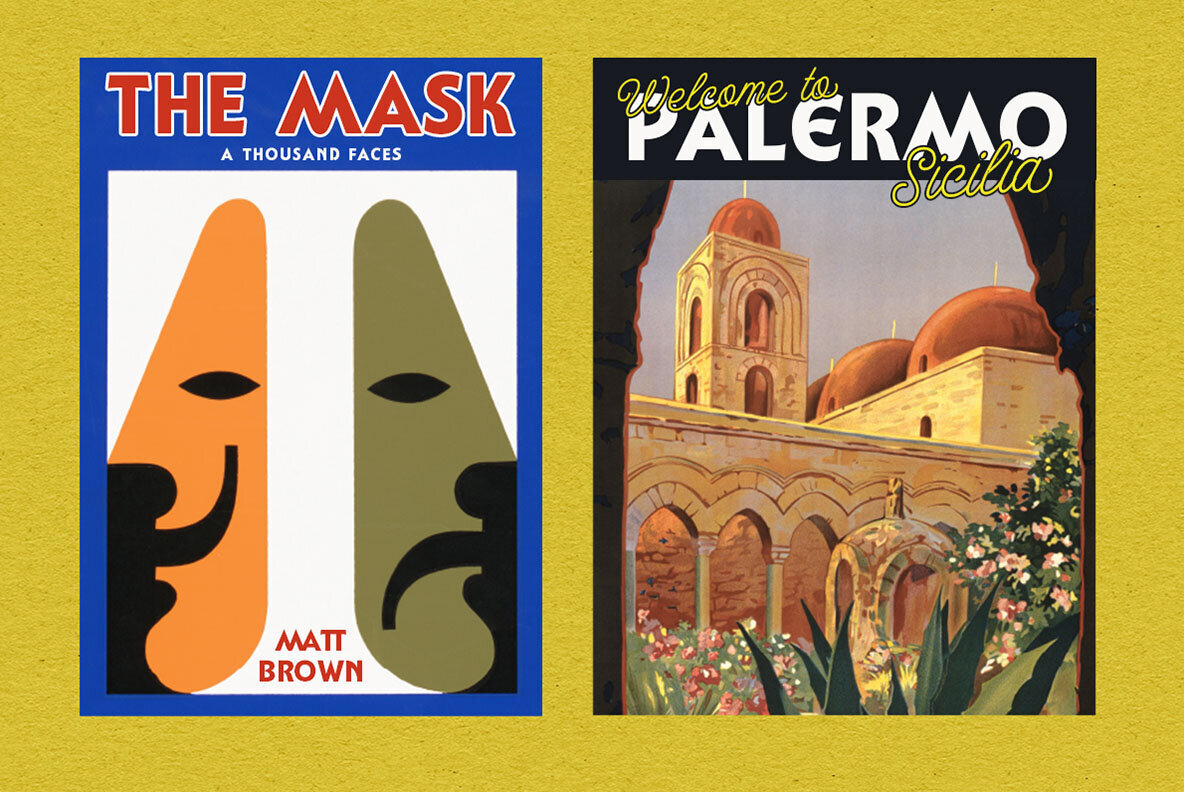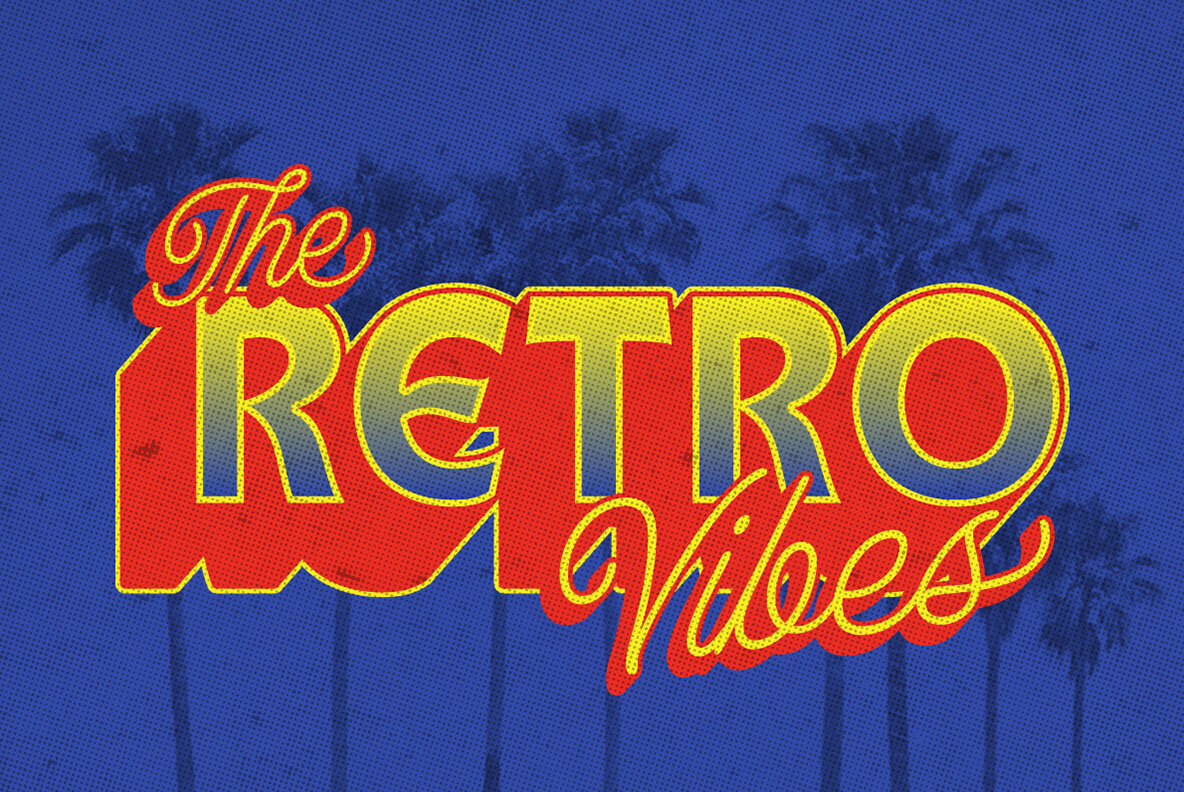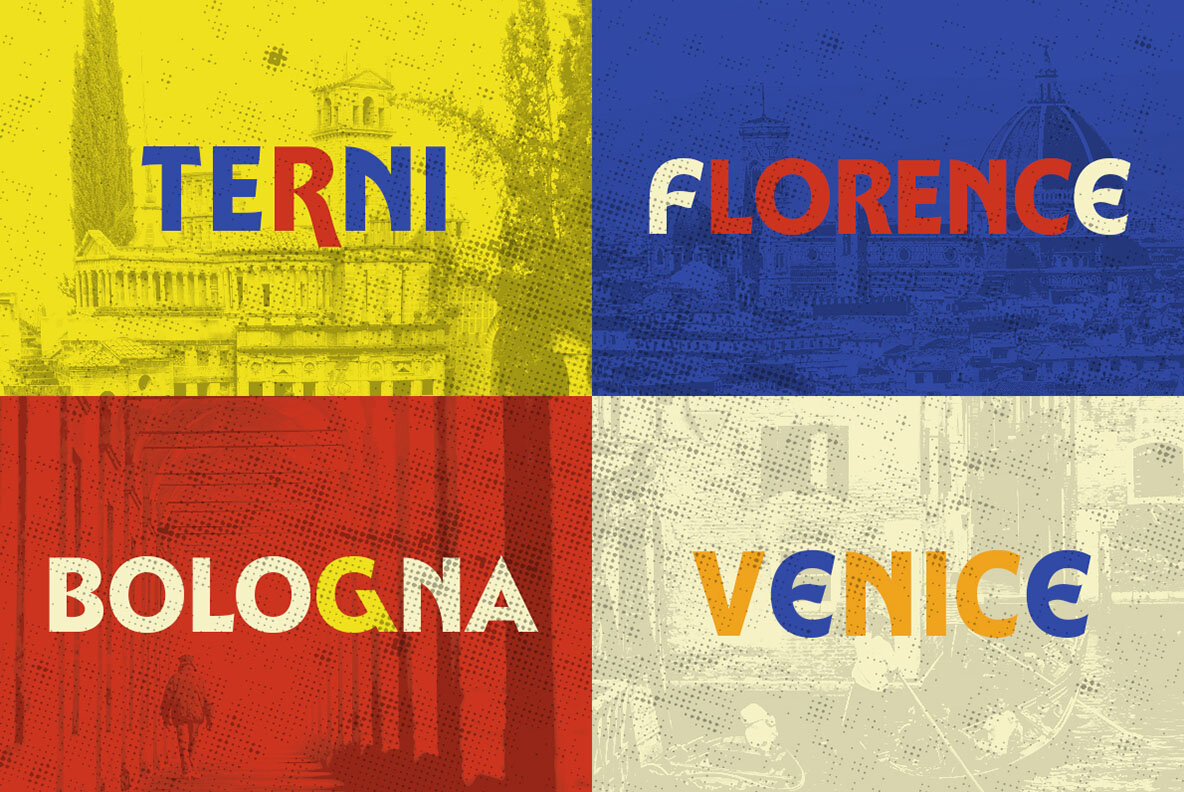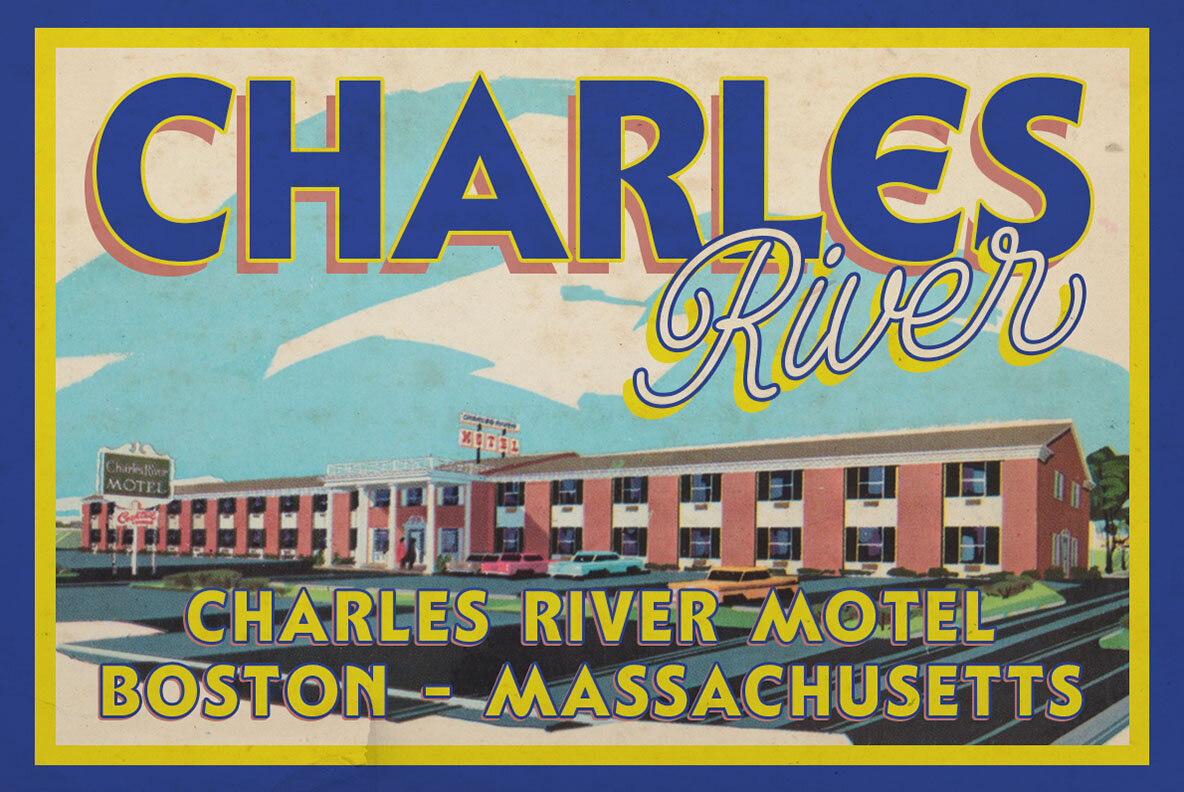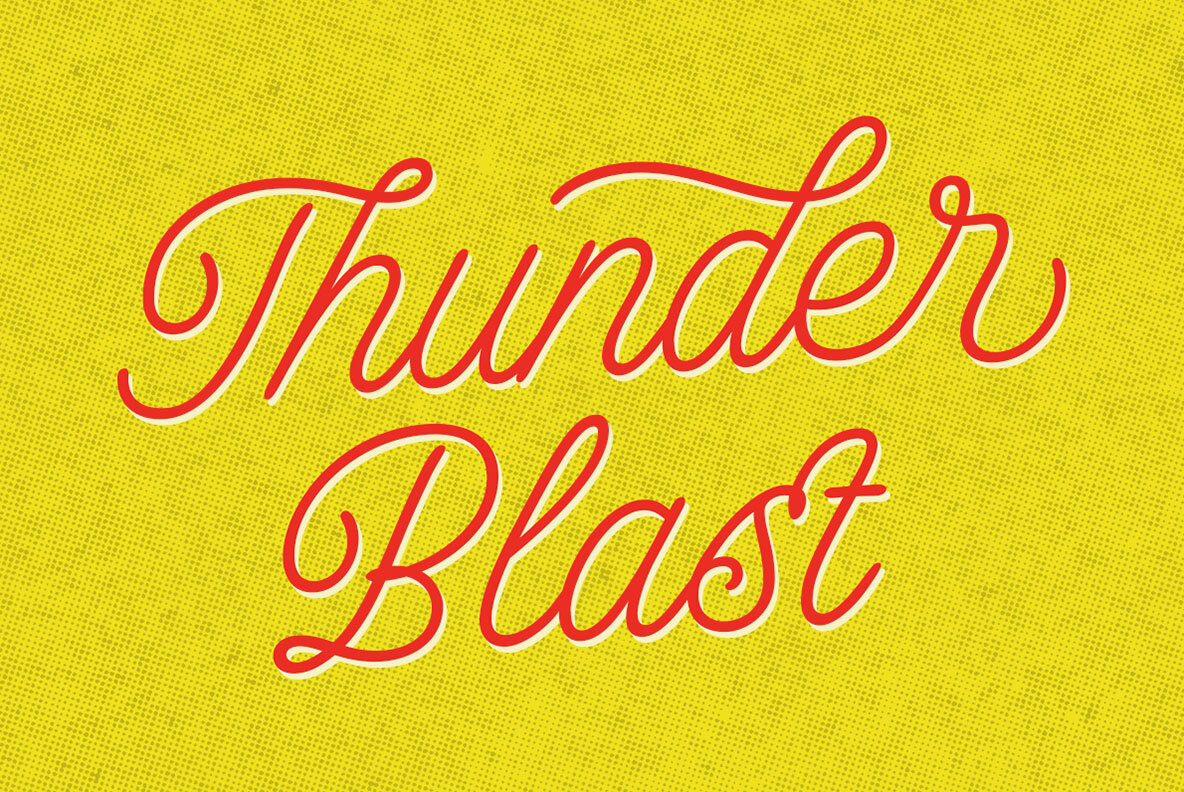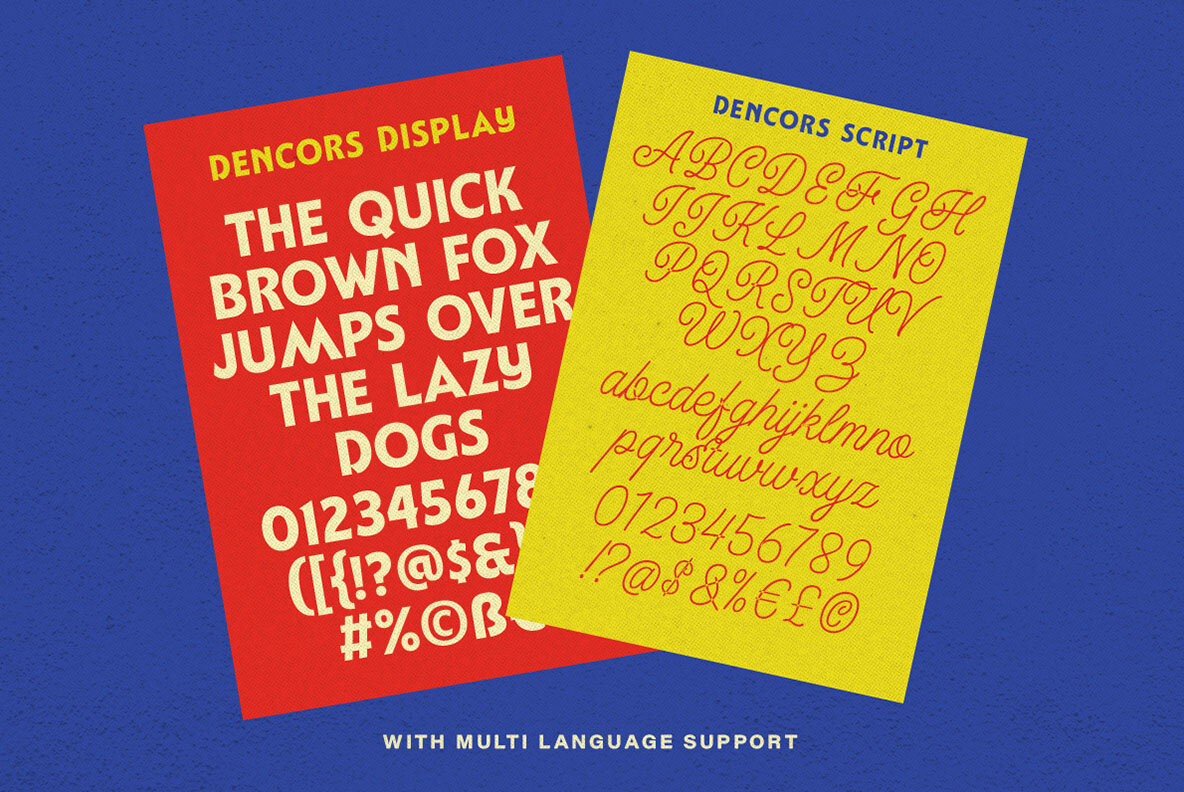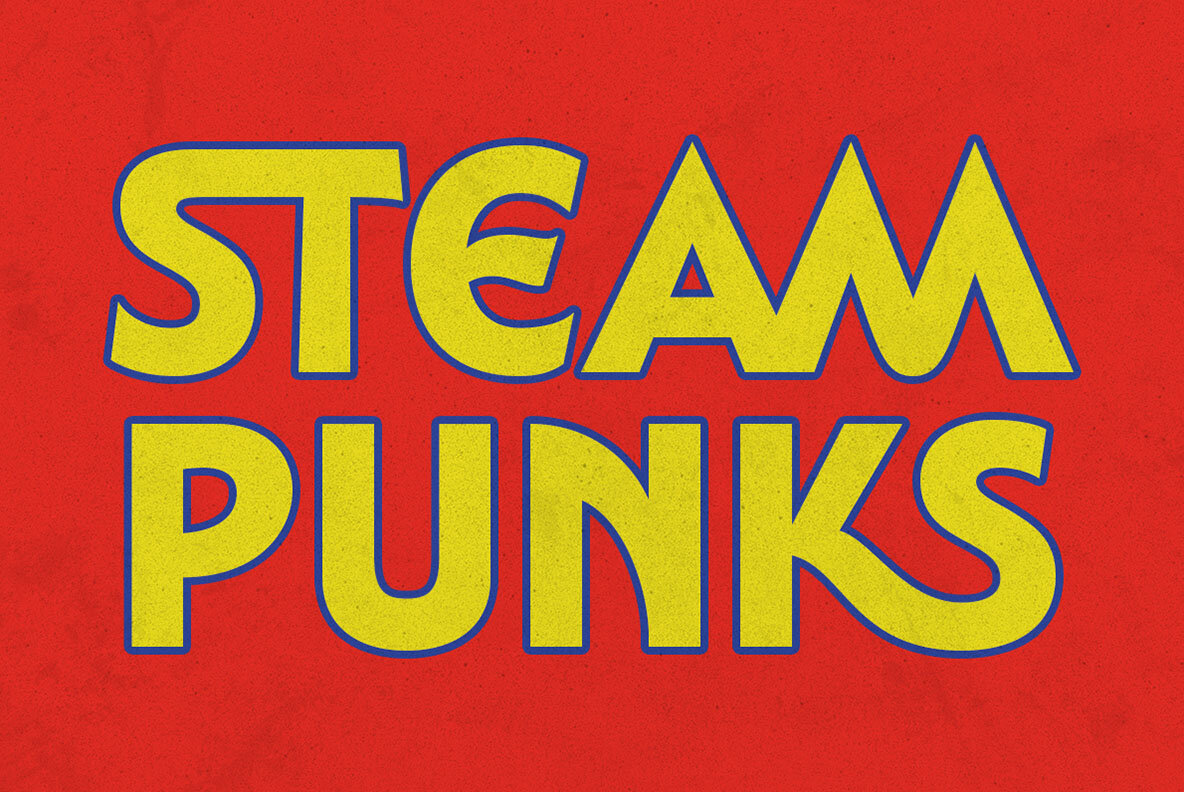
Dencors Font
Relive the golden era of art with Dencors, a sophisticated font duo featuring a classy script and a classic display sans. Inspired by 60s and 70s signage, this font exudes a vintage feel that’s perfect for logos, invitations, labels, magazines, books, greeting and wedding cards, packaging, fashion, stationery, novels, and various types of advertising. Its timeless charm makes it ideal for both formal and creative applications.
Dencors offers a comprehensive set of features, including uppercase and lowercase letters, numbers, punctuation, alternates, ligatures, and multilingual support. To fully harness its potential, we recommend using software that supports OpenType features and Glyphs panels, such as Adobe applications and Corel Draw. This will allow you to explore and access all available Glyph variations with ease.